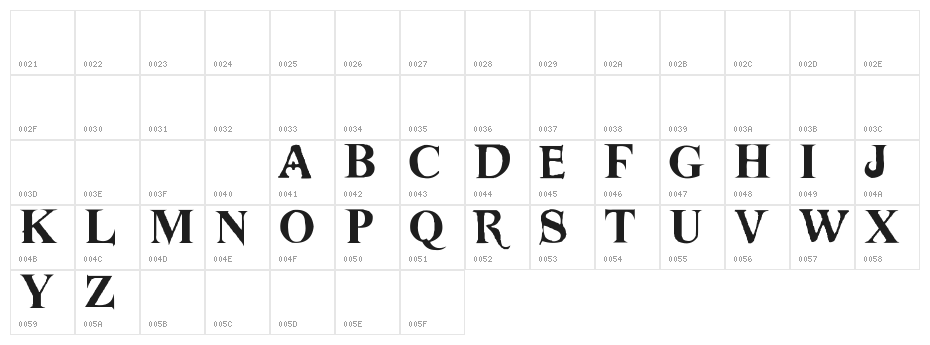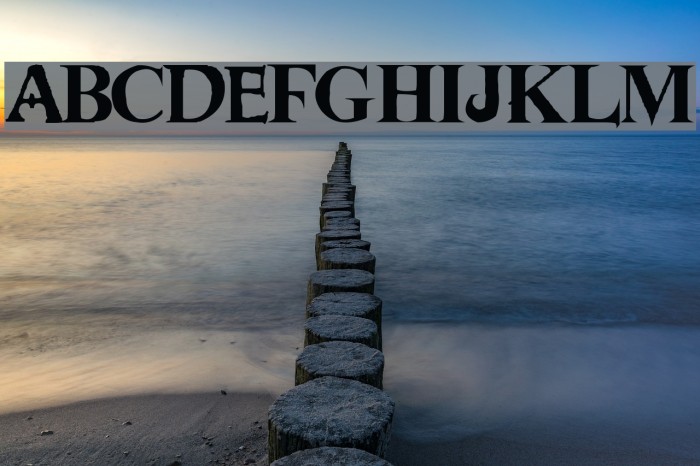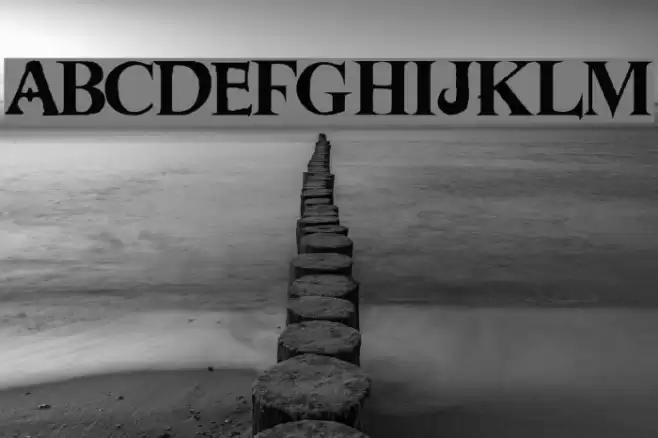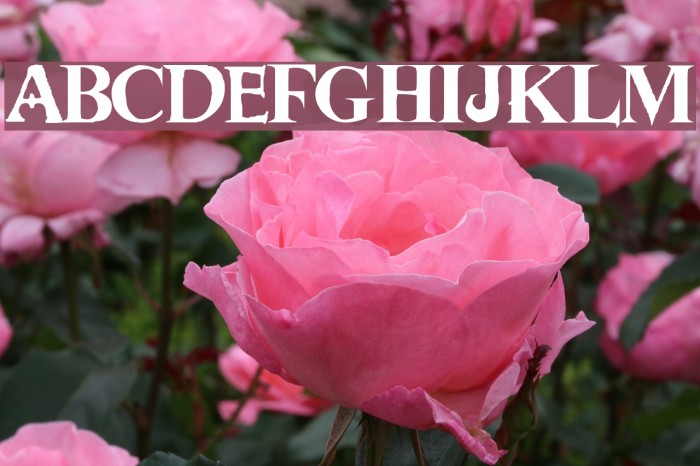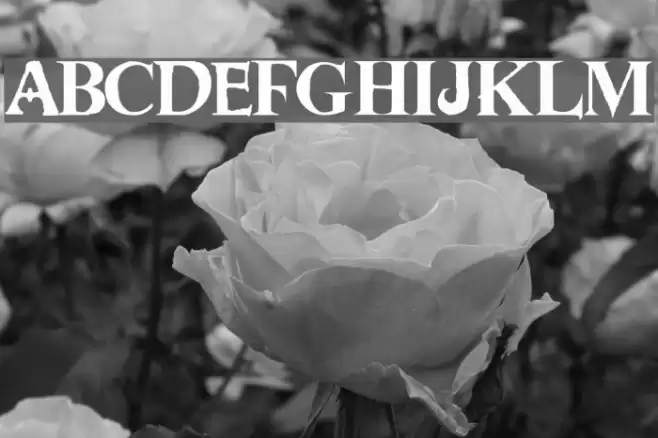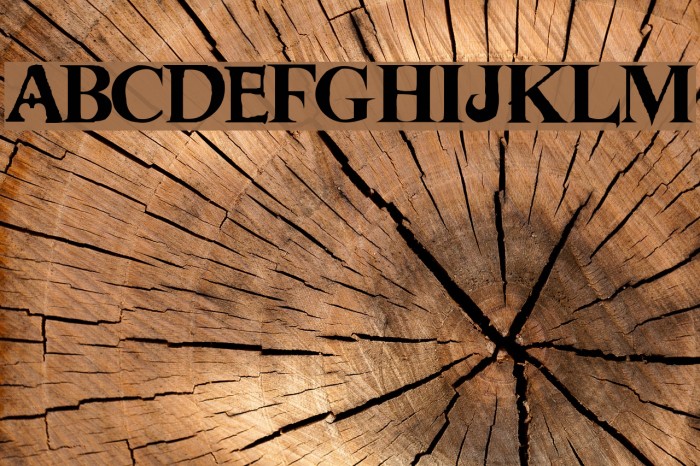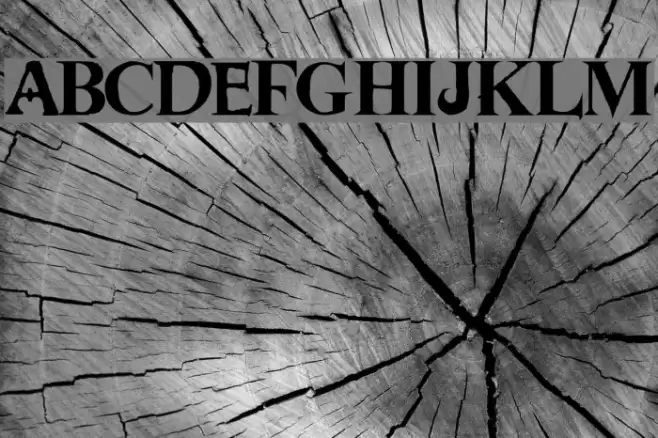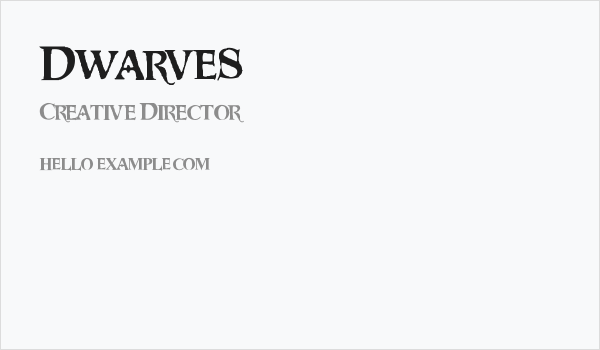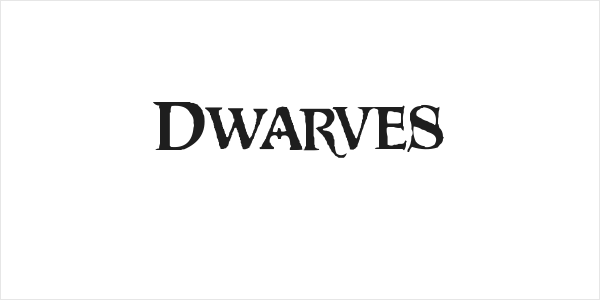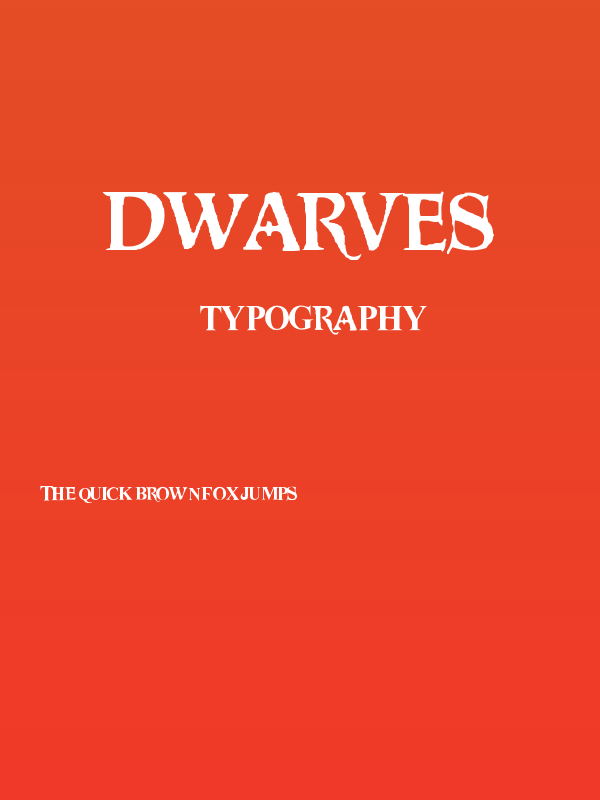
Dwarves Font
Dwarves Description
This font features a bold and striking design with a medieval flair. The characters are sharply defined with pointed serifs and a strong presence, reminiscent of traditional blackletter styles. The uppercase letters are particularly prominent, with a sense of grandeur and authority. The strokes are thick and consistent, providing a sense of solidity and weight. The overall appearance is both decorative and functional, making it suitable for projects that require a historical or fantasy theme. The font's unique character shapes and embellishments add a touch of elegance and sophistication.
| Proposed Projects | Ideal for fantasy book covers, historical event posters, or themed branding. |